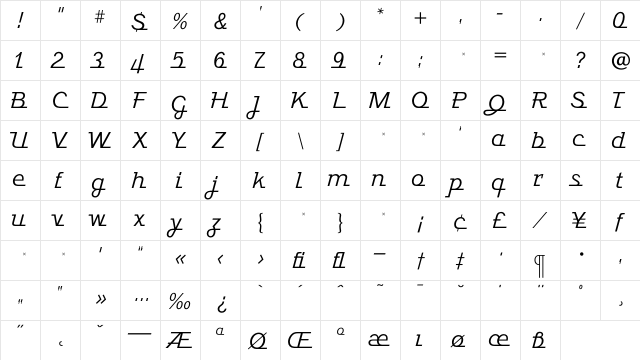
JavelinMedium Regular
Design Context for JavelinMedium Typeface
JavelinMedium takes a measured approach to typography — its balanced proportions and neutral character make it a reliable workhorse for both digital and print work.